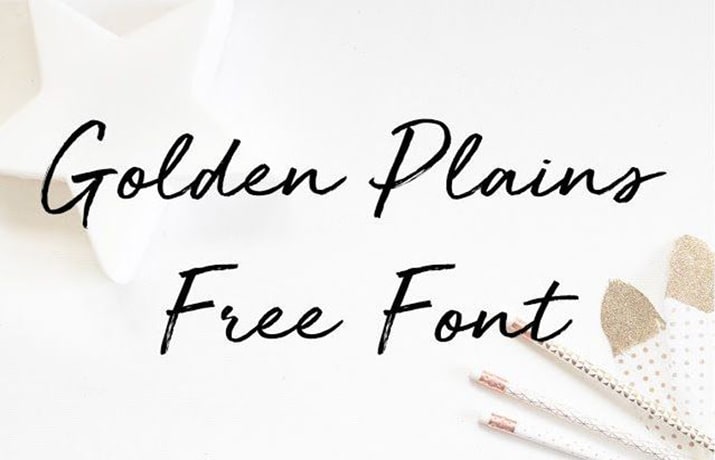
Golden Plains Font is an elegant script handwritten typeface that comes with a beautiful set of letters. It’s perfect for designing fun designs and invitations.
It was created by and shared by BLKBK Fonts that is an independent font foundry and graphics studio specializing in type design and custom fonts.
This font features a premium high-resolution letterpress texture with vintage appeal. Also, it includes a variety of glyphs, numerals as well as swashes.
So, the designer took a lot of care to ensure the consistency of the characters across the map while creating this handwritten font.
True to its eye-catching expression, this tasteful font is perfect for any branding or large display design purposes.
Moreover, it is also suitable for logo creation, book covers composing, banner ads, brochure layout, printing industry, label design, official cards, invitation cards, wedding card design, and many other related things. can use
This font has a single regular style with special characters and punctuation marks. It features a super cool Truetype with 232 character count.